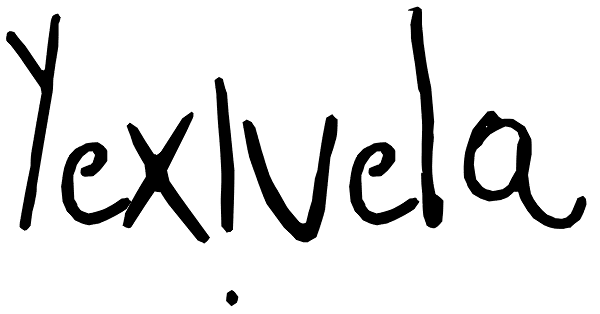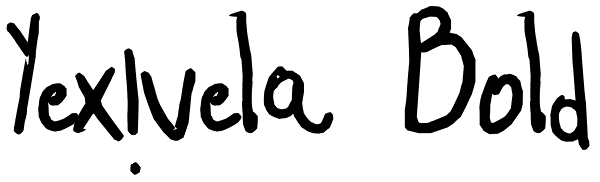
Yexivela
A beautiful unusual handwriting. It works good at any size and adds a weird look. Its exaggerated features give it a truly unique look while keeping legibility.